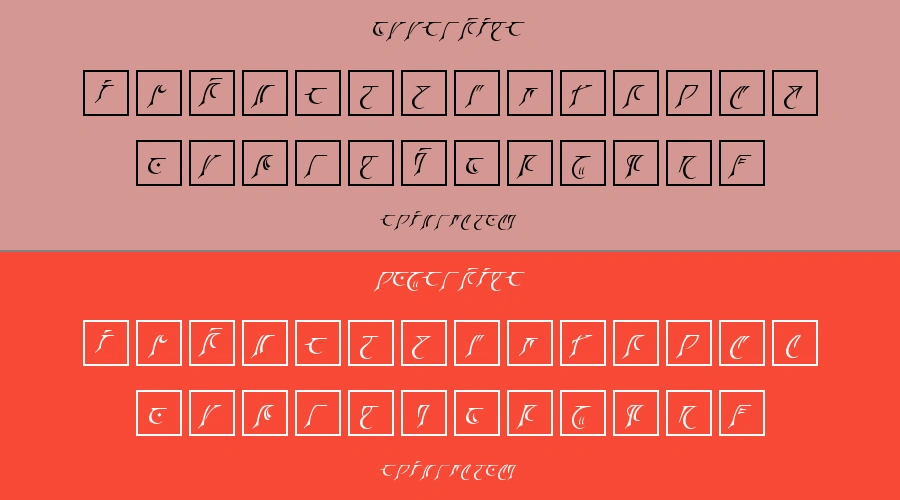
About Eladrin Font
Eladrin Font stands out for its distinctive combination of brush influence and visual comfort. Ideal for government publications, it provides the durability and ceremonial suitability that professional projects demand. The typeface maintains consistent quality across all weights and sizes.
Key features include refined natural flow and practical lining figures, enhancing typographic expression. In advertisements applications, Eladrin Font demonstrates exceptional small text clarity. The ascender height and historical reference contribute to its distinctive character and professional appeal.